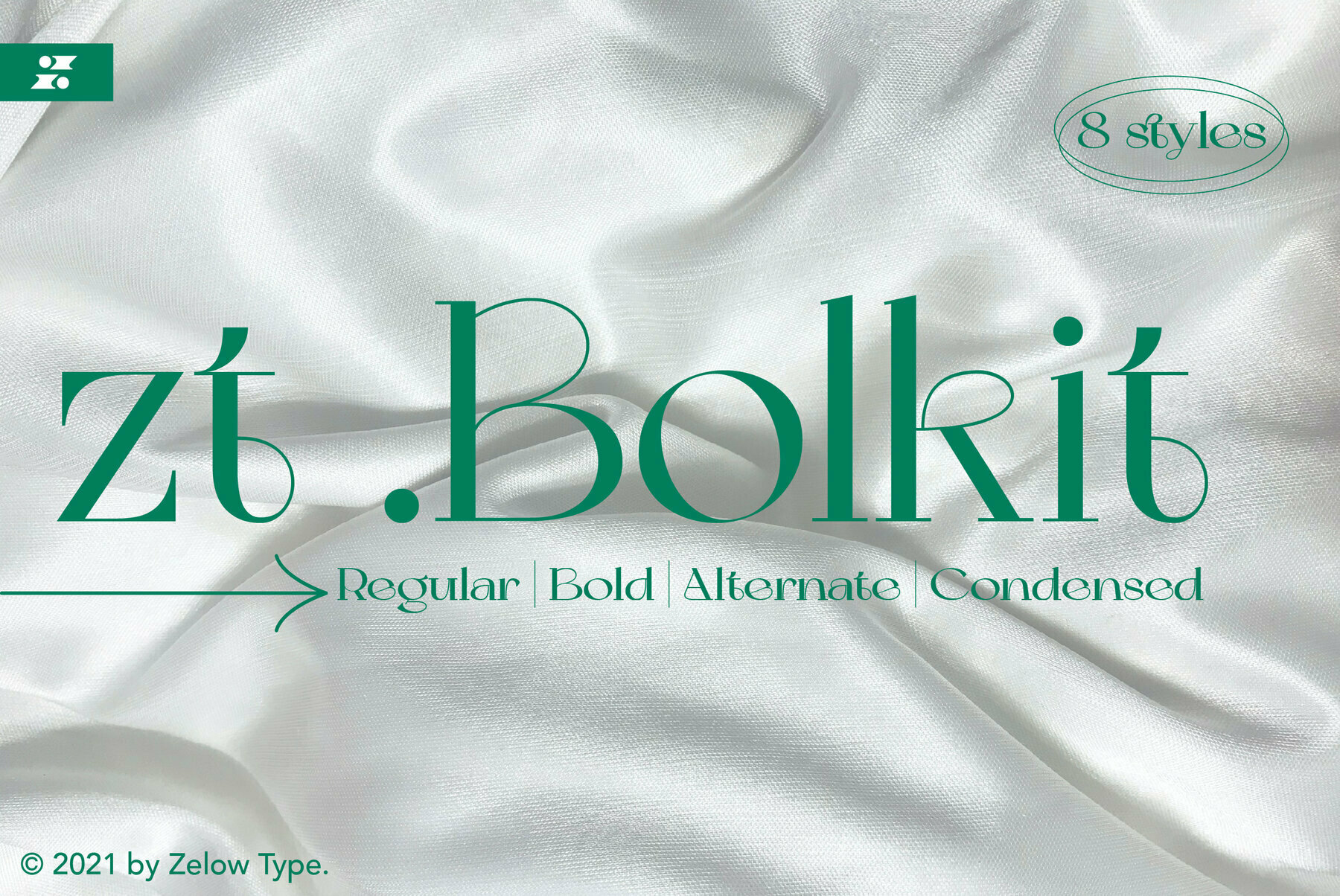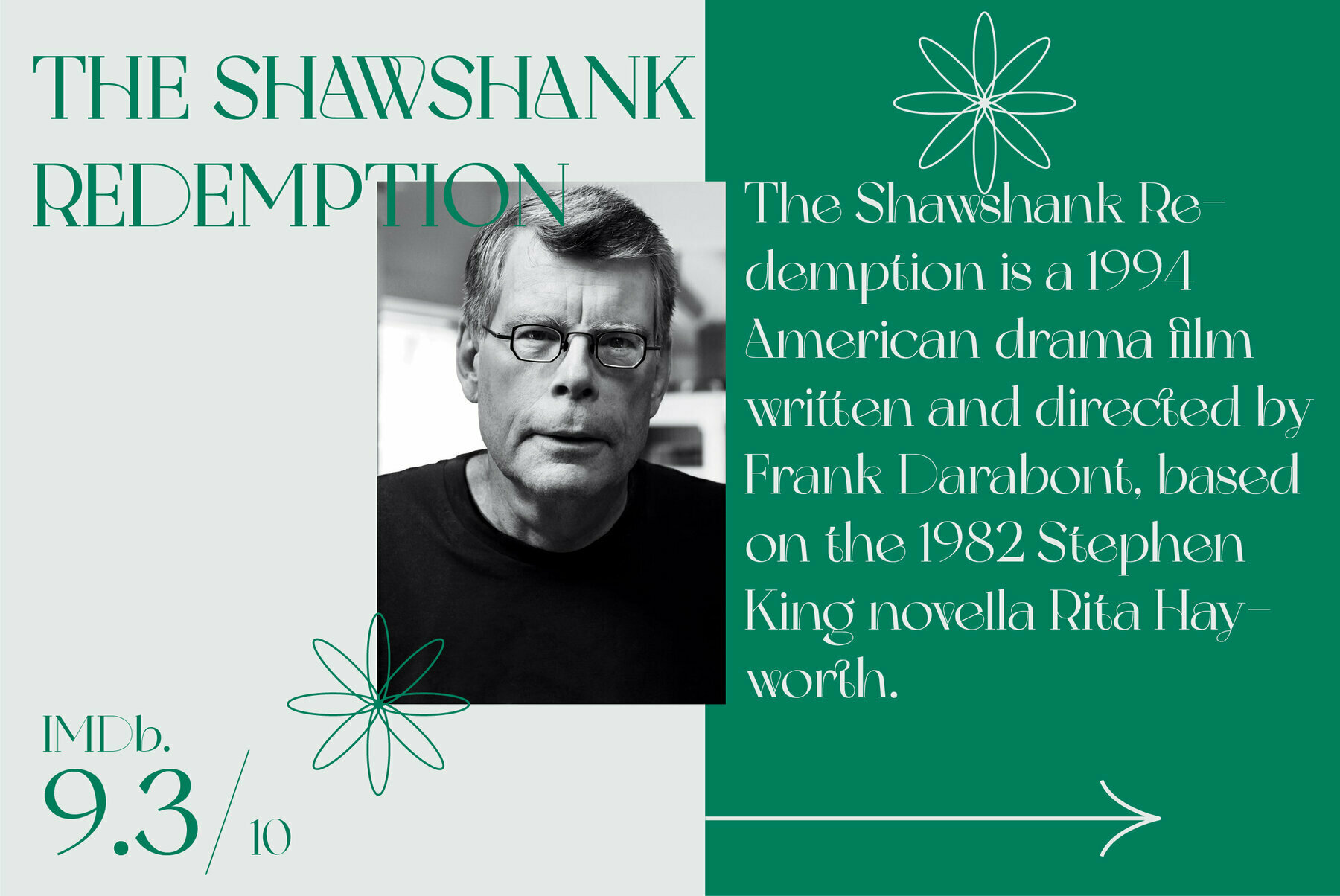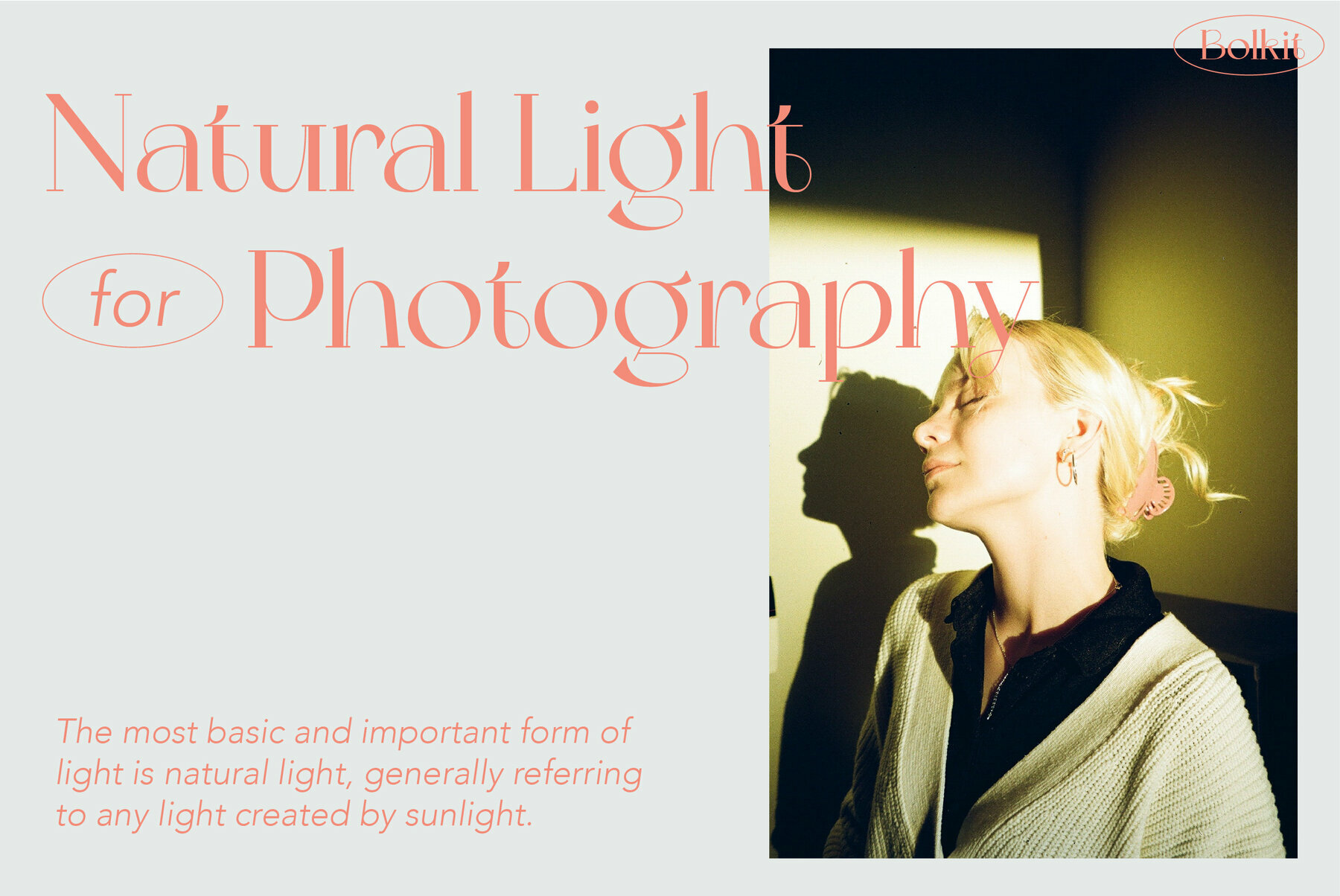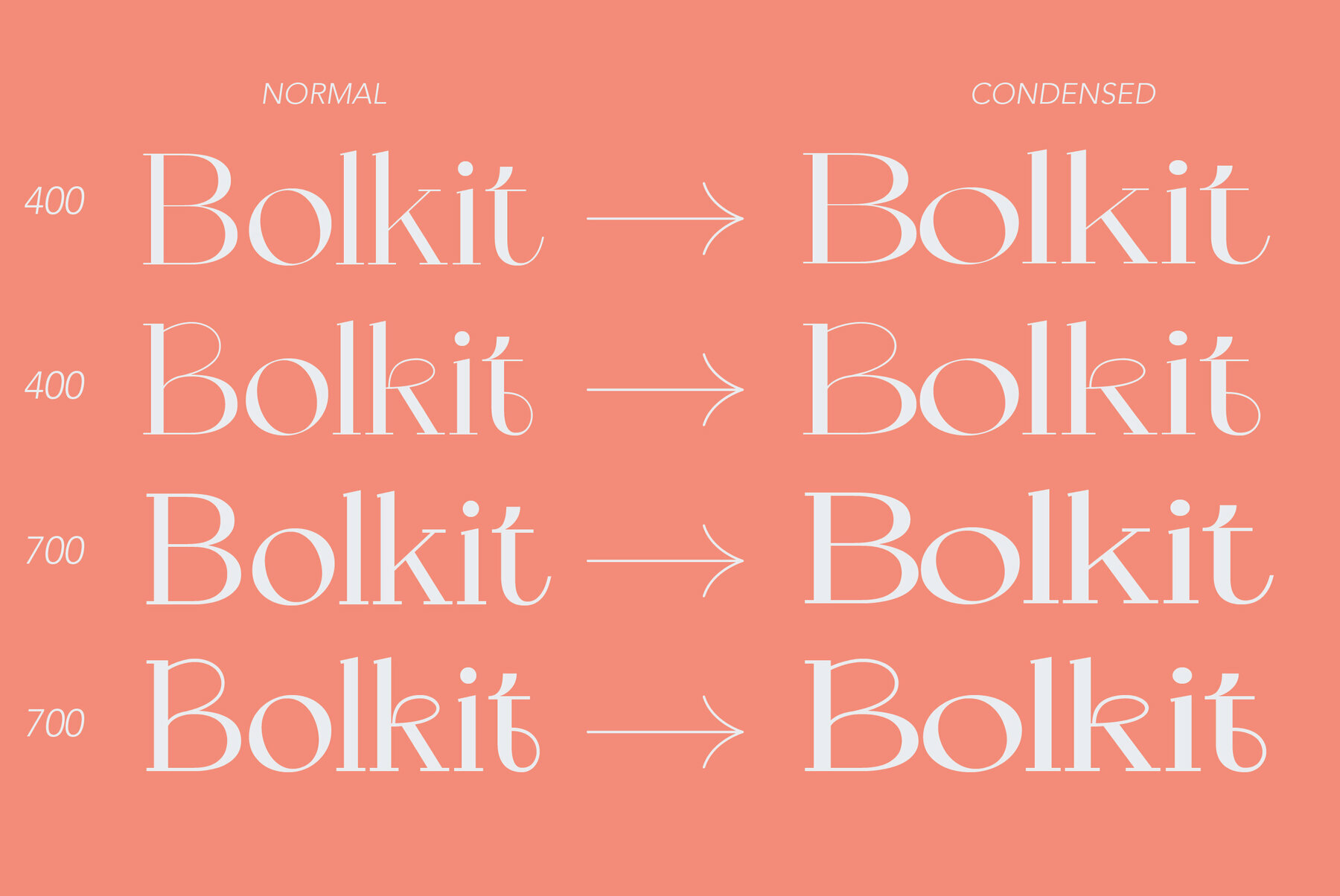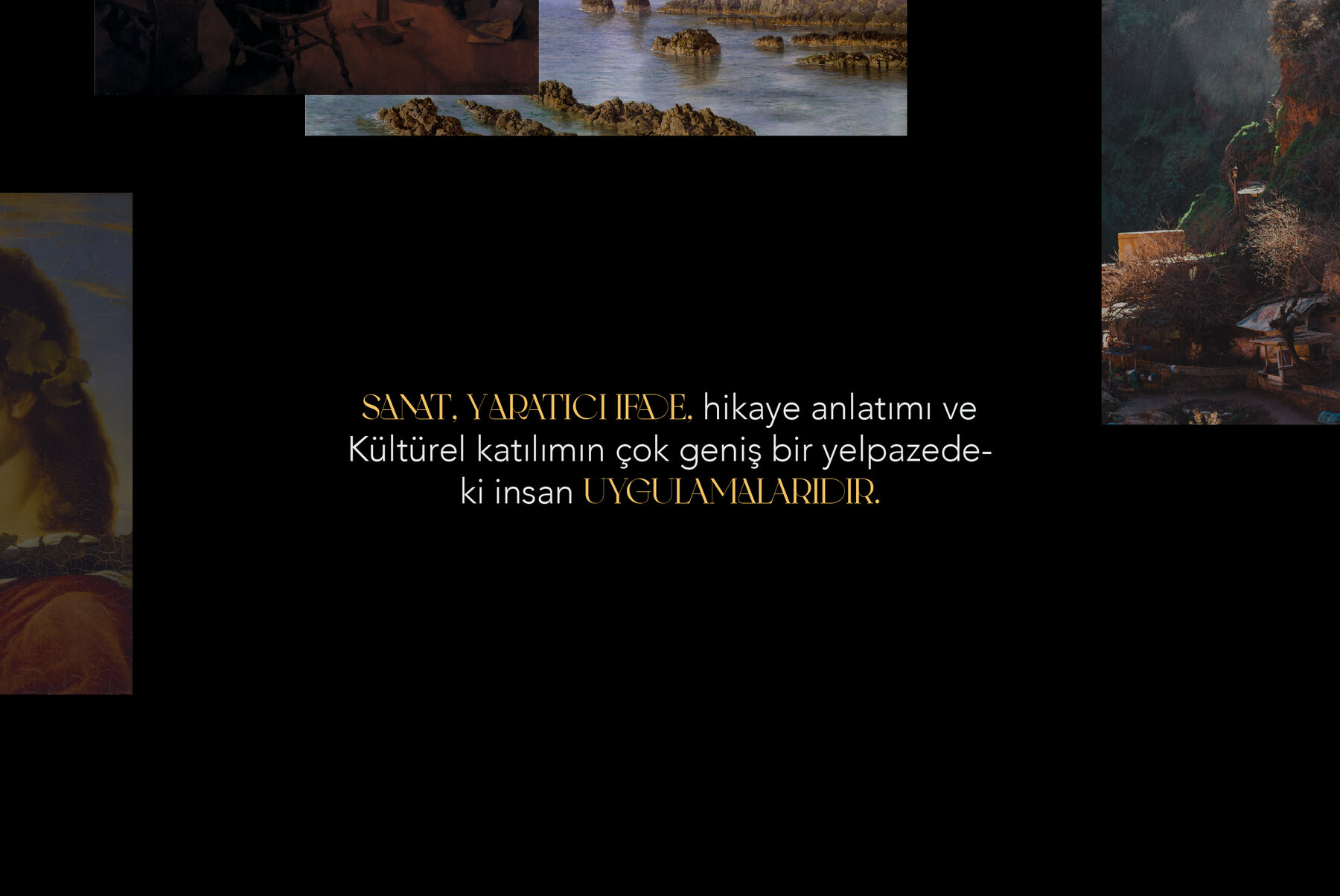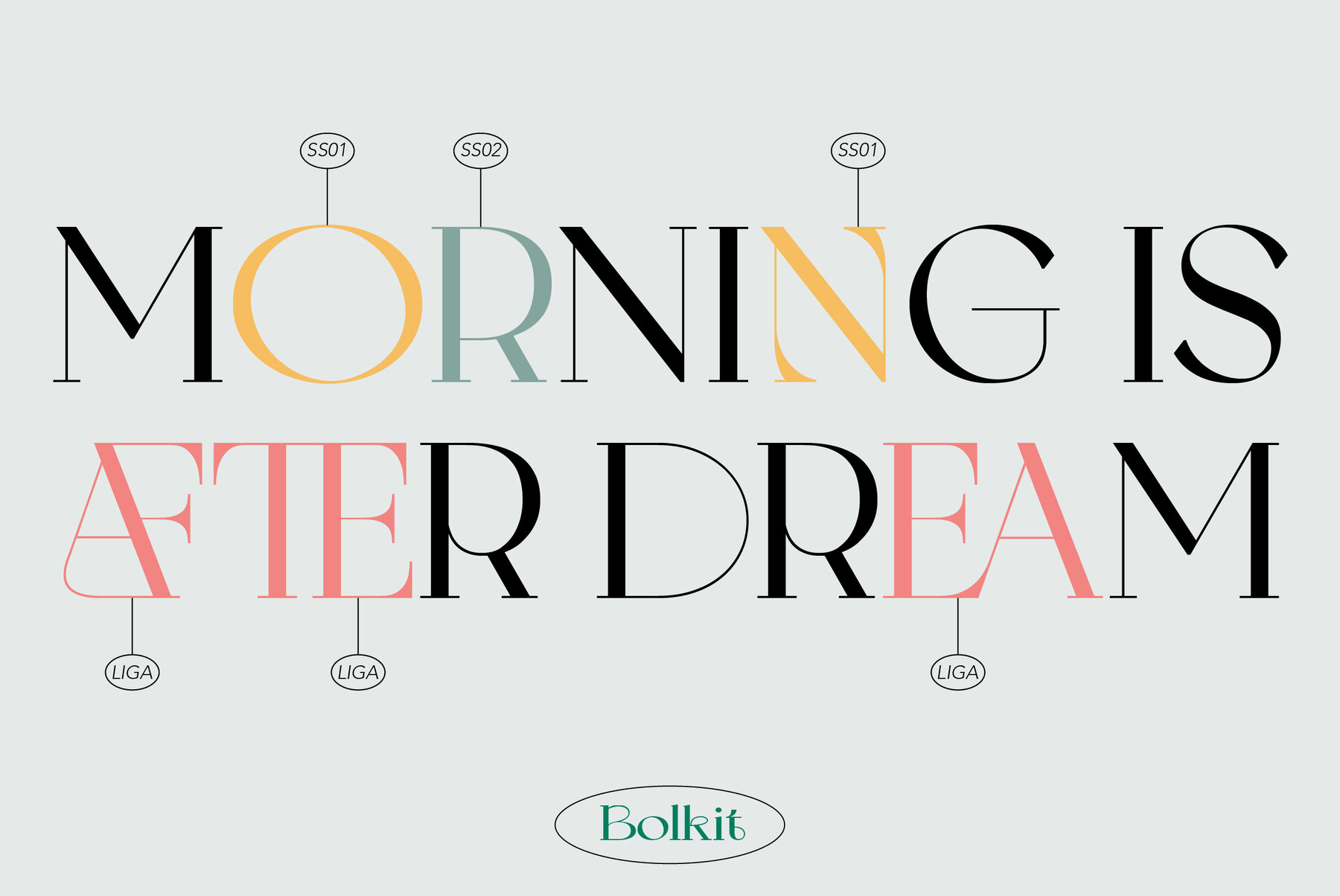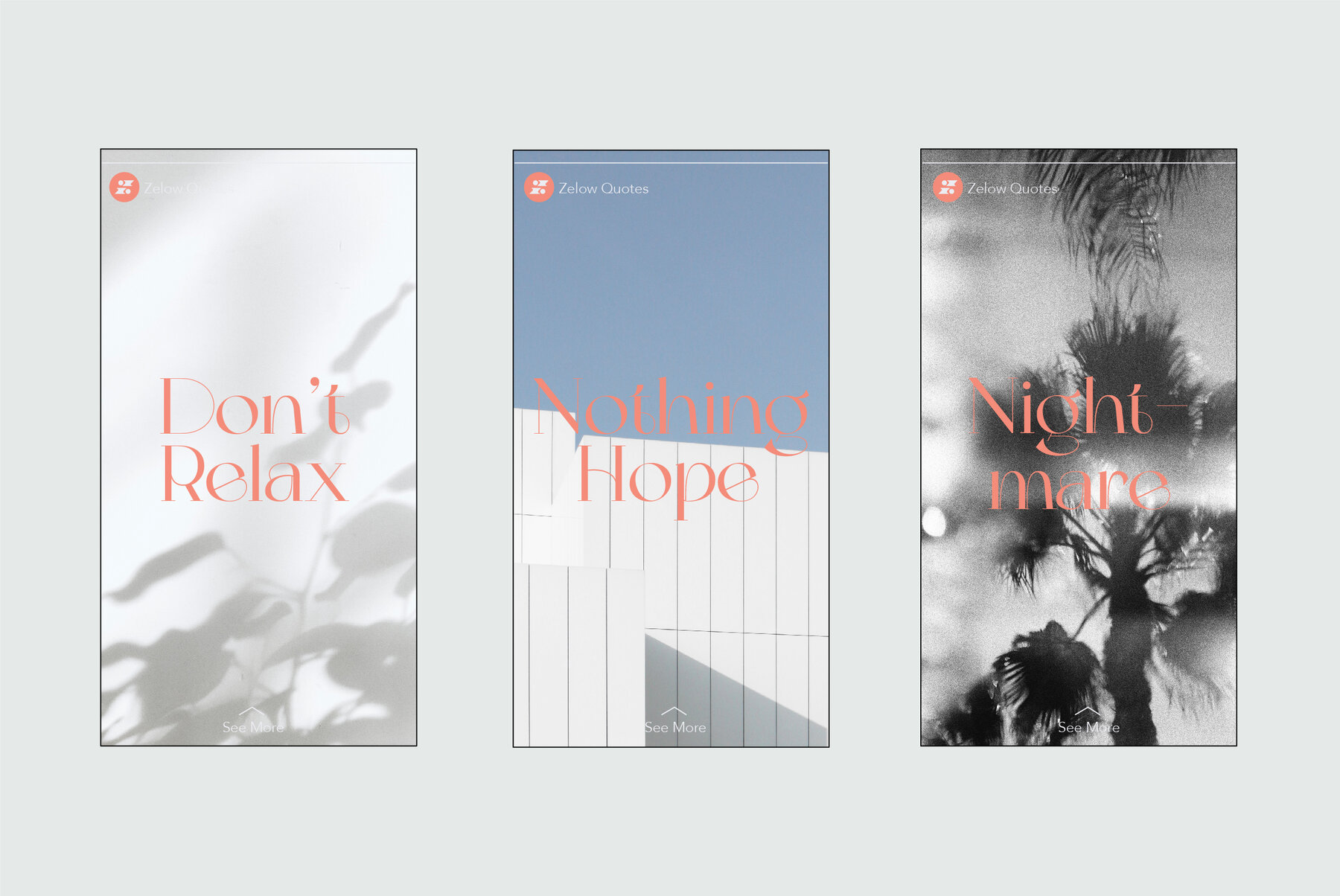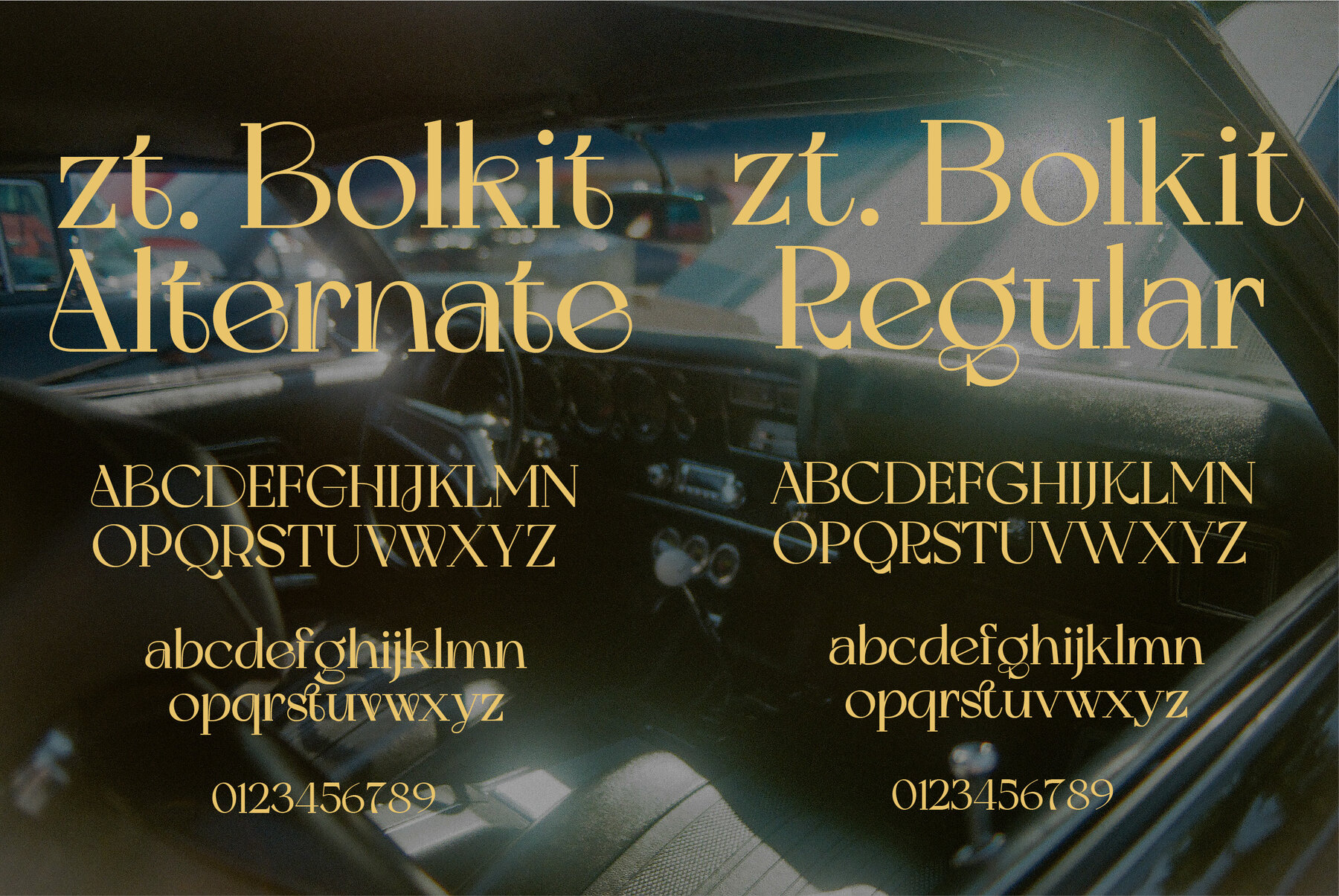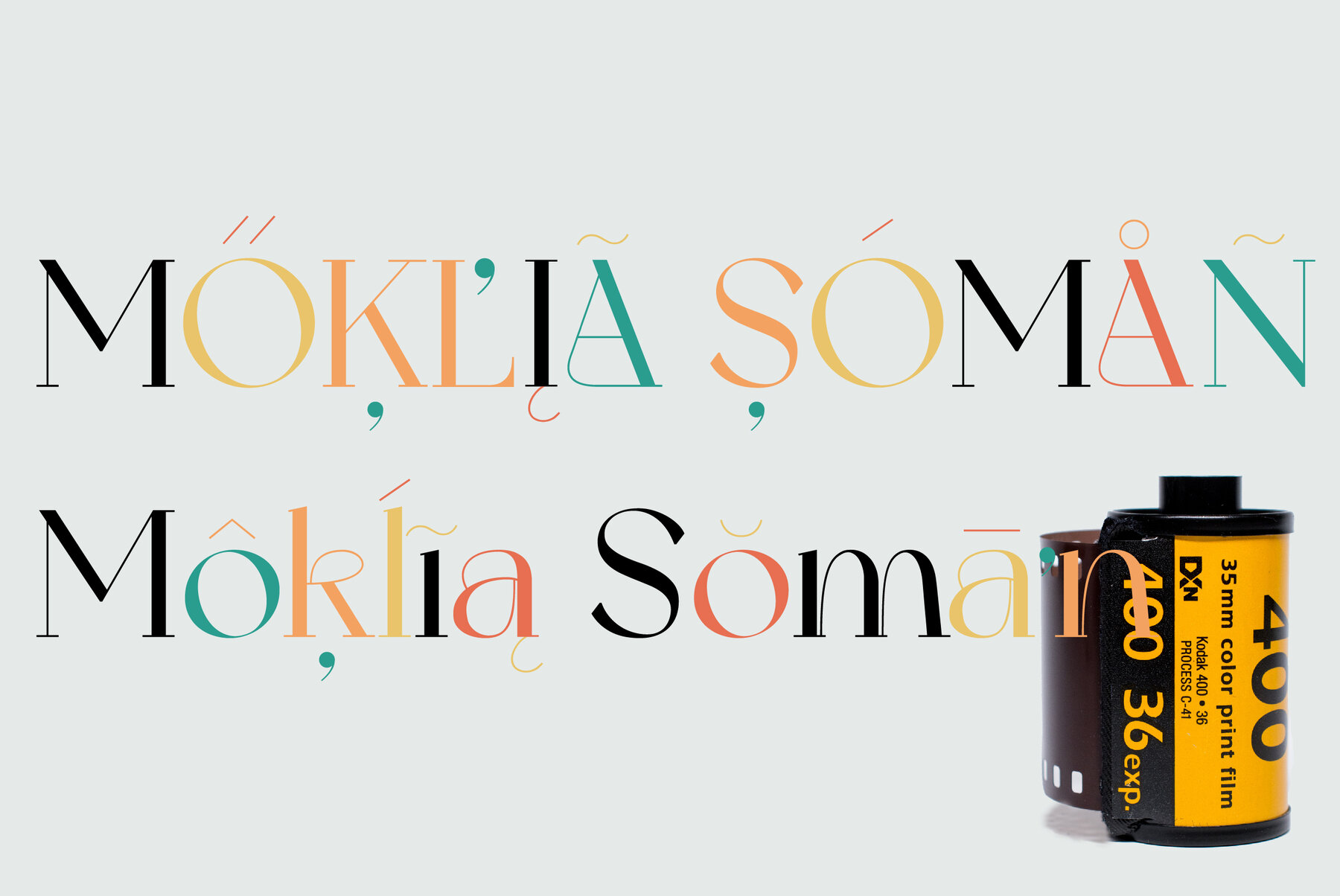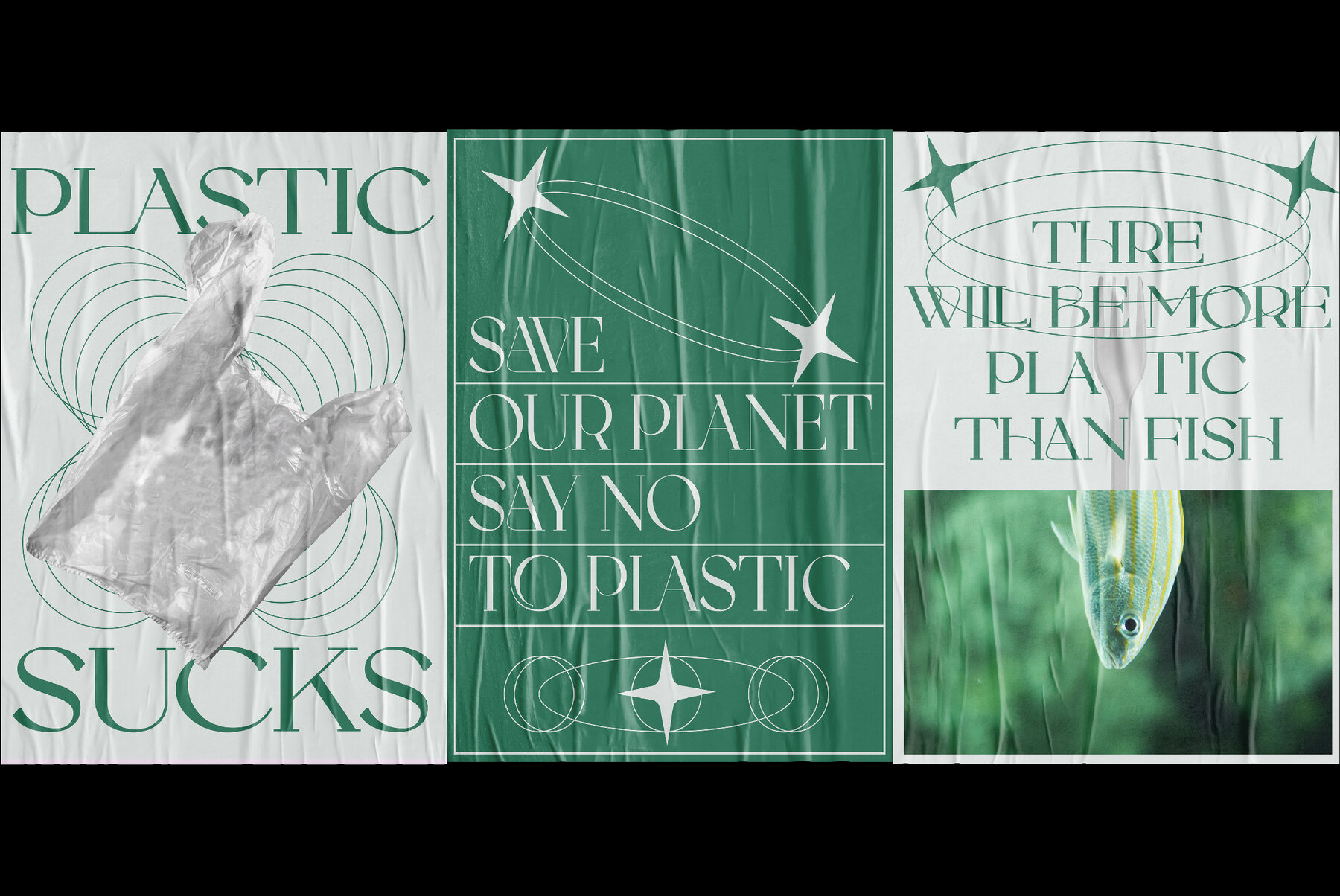
Bolkit Font
Bolkit Serif by Zelow Type ZT presents a sophisticated blend of elegance and strength. With two distinct styles, one is noted for its smooth arches providing a graceful touch, while the other exhibits a robust presence through its firm character lines. The simplicity embedded in Bolkit's design resonates through its minimalistic yet impactful aesthetic. Available in two widths and offering a versatile range of weights (Thin and Bold), Bolkit Serif is designed to adapt to various design needs. This typeface features an extensive character set: Bolkit supports more than 60 languages, which includes Western, Central, and Southeastern European languages. This makes it an excellent choice for global projects looking to encapsulate clarity and diversity in their type selection.Bolkit Serif: A Typeface of Distinct Duality